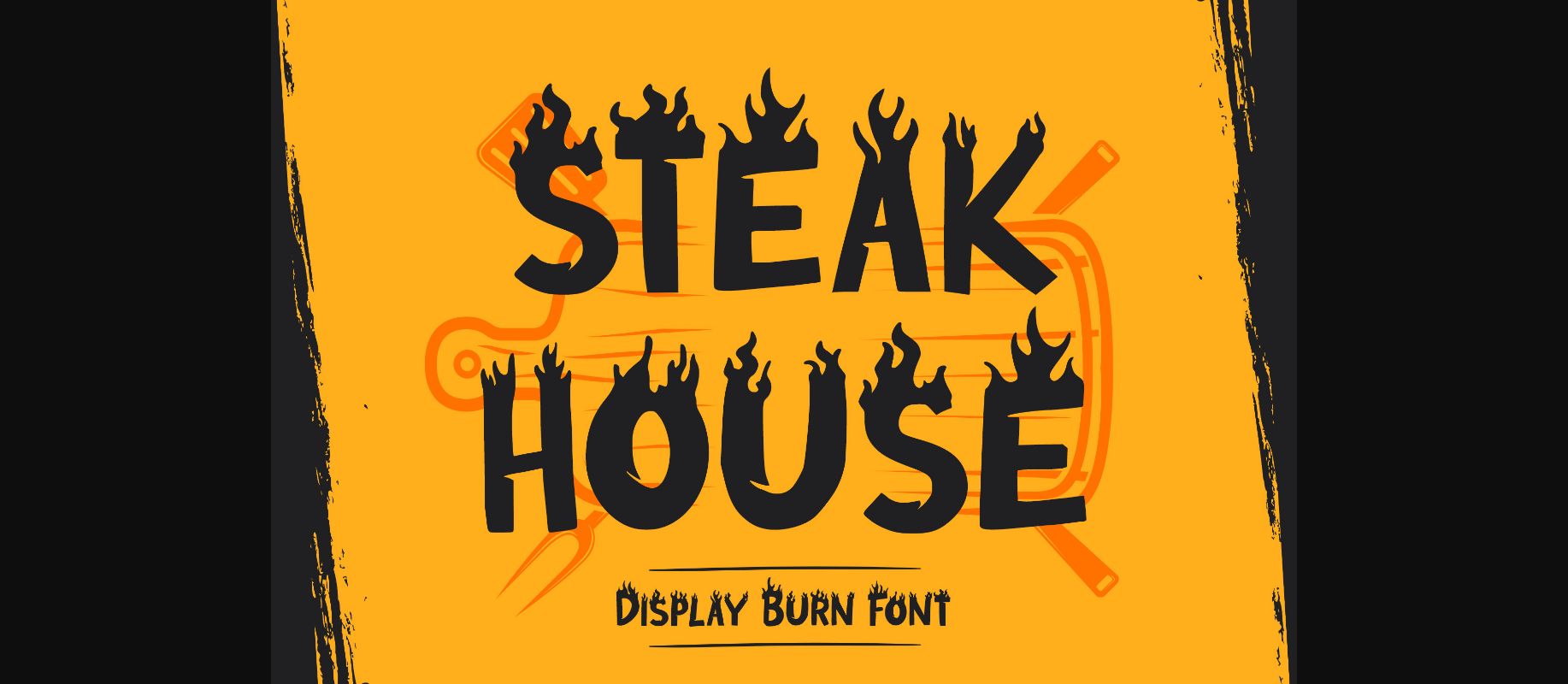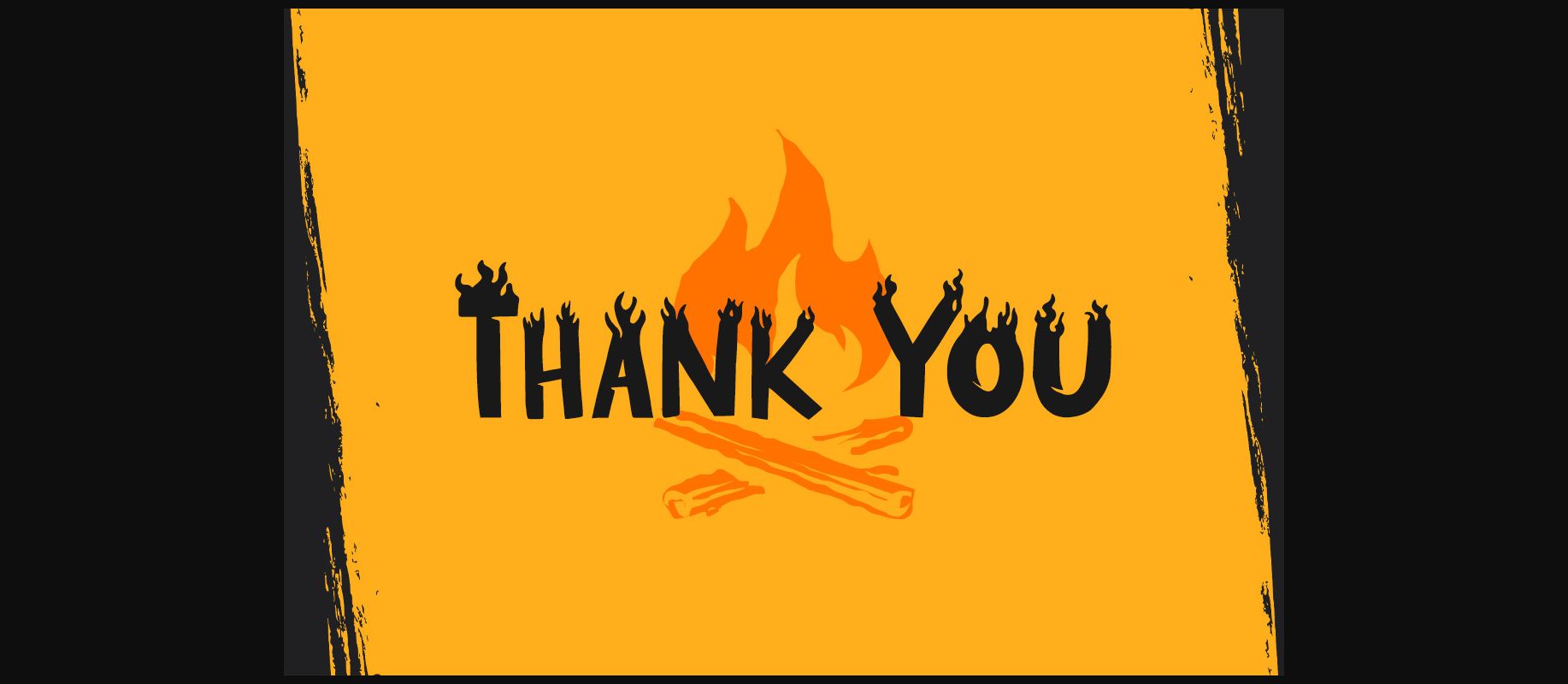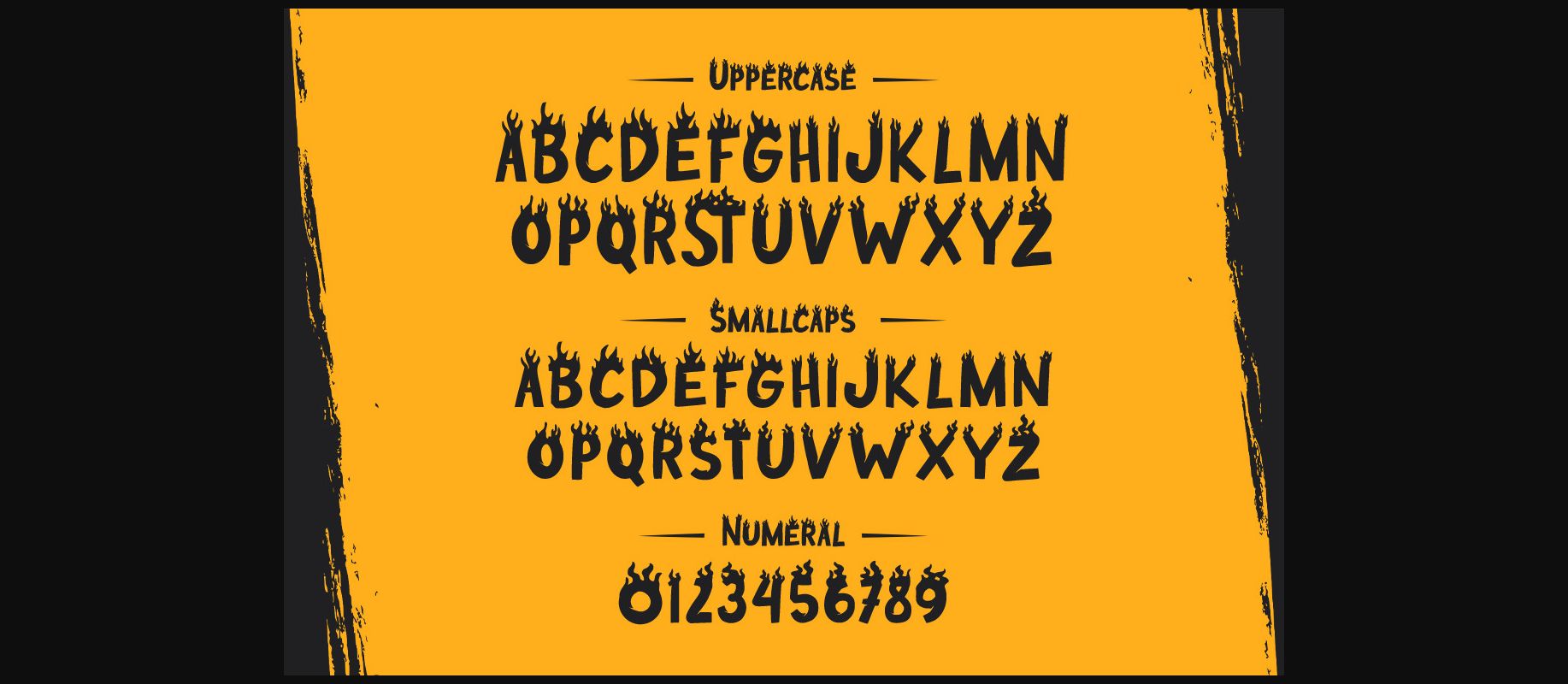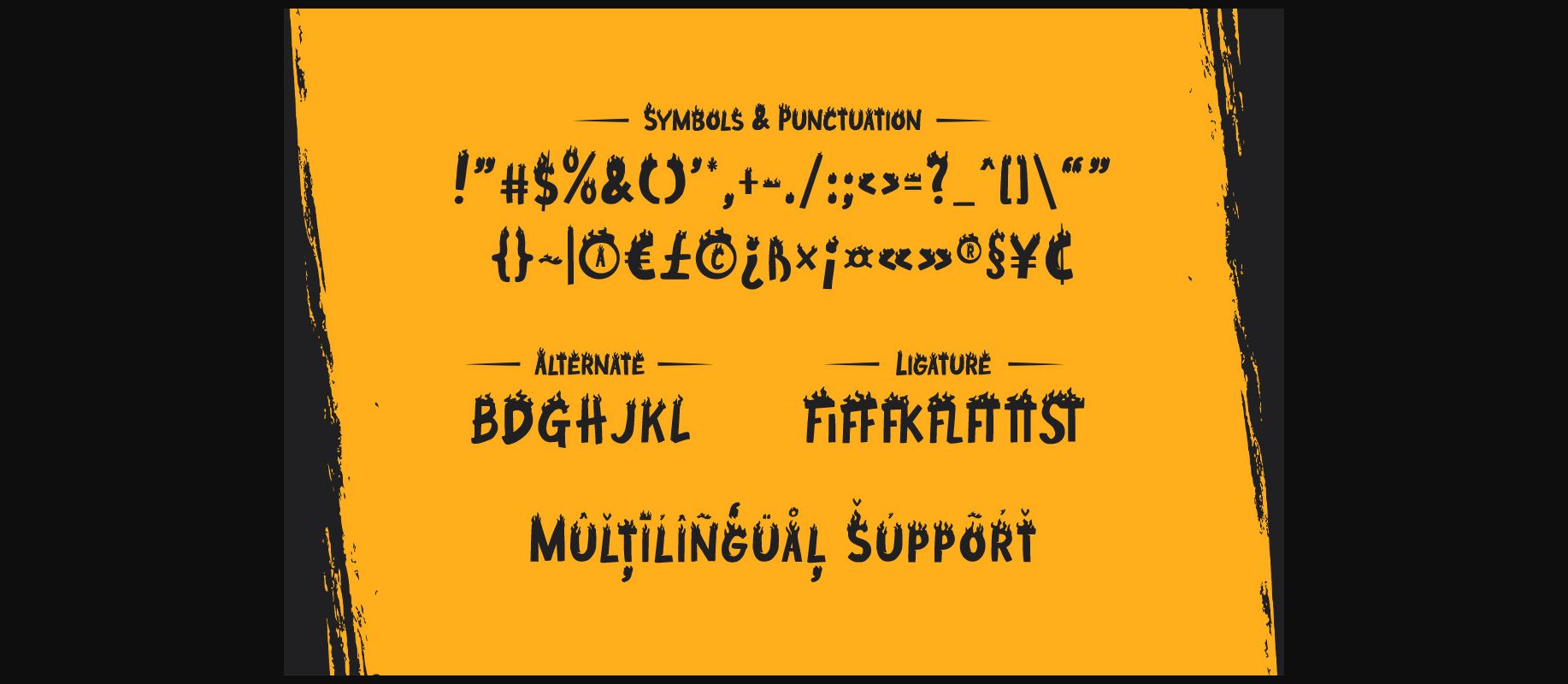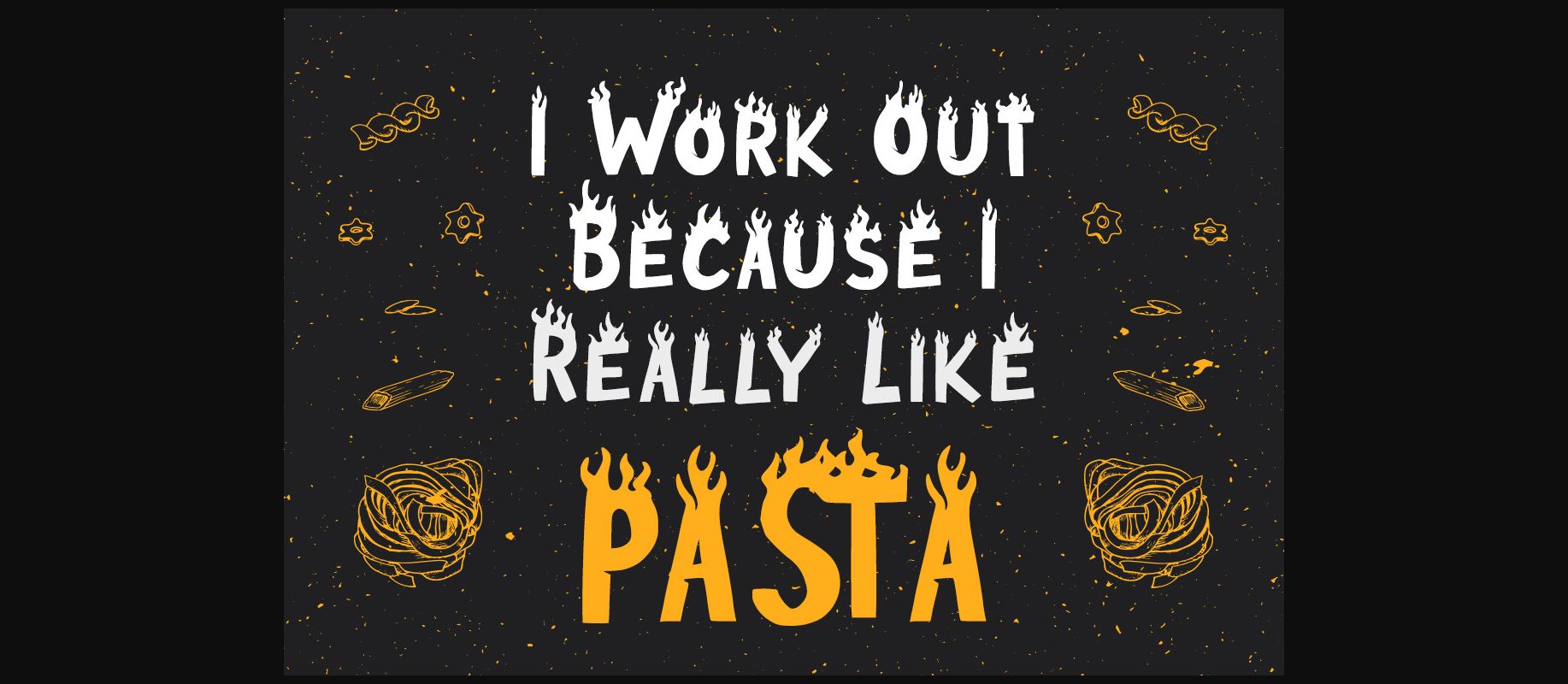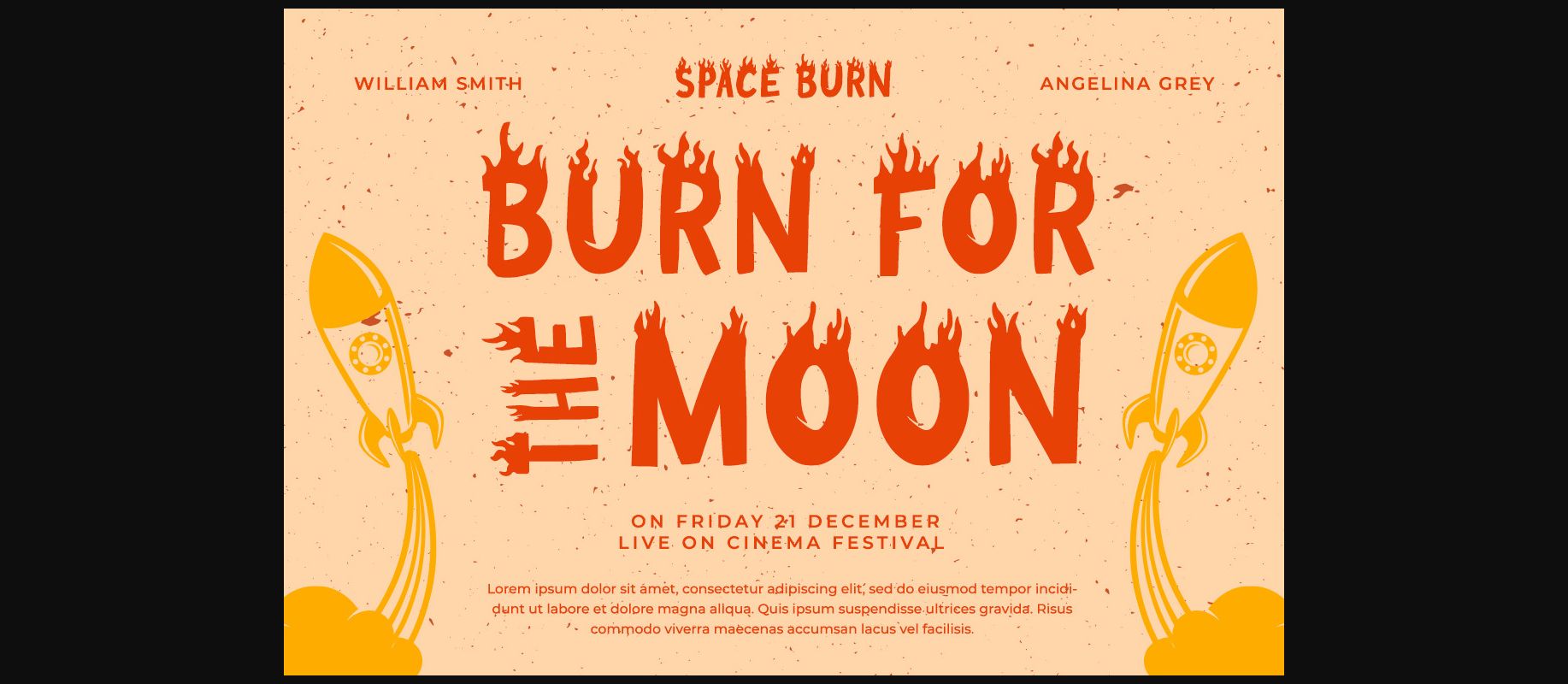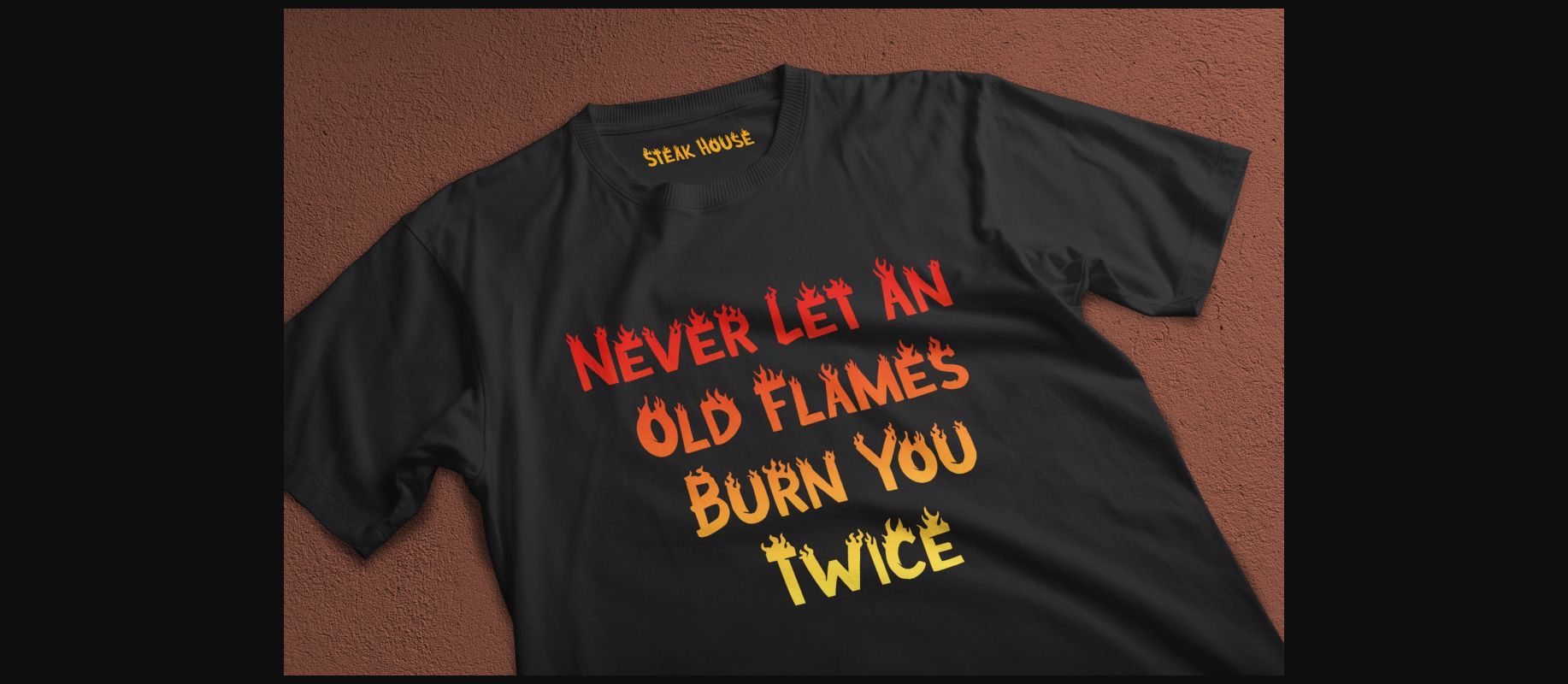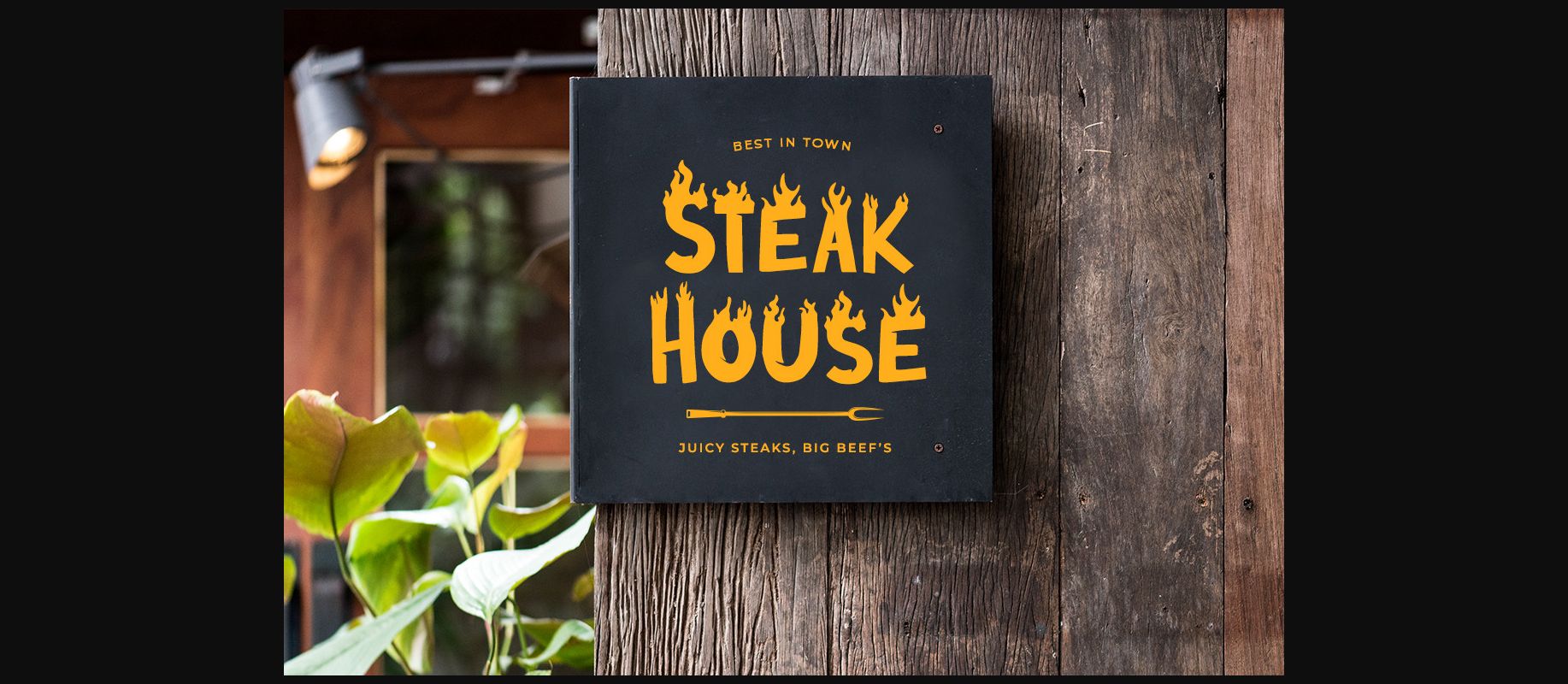
HomeDecorative FontsSteak House Font Decorative Fonts Steak House Font FacebookXPinterestWhatsApp 1 of 10 ... Steak House Font Poster 2... Steak House Font Poster 3... Steak House Font Poster 4... Steak House Font Poster 5... Steak House Font Poster 6... Steak House Font Poster 7... Steak House Font Poster 8... Steak House Font Poster 9... Steak House Font Poster 10... About Steak House Font Steak House is a cool decorative font, featuring characters with flames. Whether you use it for cartoon related designs, children games or just any creation that requires a lovely touch, this font will be an amazing choice. DOWNLOAD NOW People also explored Shantay Font Hughes Font Tropicalism Font Sweetfrance Font Jet Seat Font Boho Dreams Font Veruttala Font Aussie Font Sublimation Font 301 0 TagsSteak House Font Previous articleDoctor and Nurse FontNext articleStylish Monogram Font LEAVE A REPLY Cancel reply Comment: Please enter your comment! Name:* Please enter your name here Email:* You have entered an incorrect email address! Please enter your email address here Website: Save my name, email, and website in this browser for the next time I comment. Personal Use Free Loving Personal Use Free Read more about this font Bebas Neue Font Personal Use Free Read more about this font Geracella Personal Use Free Read more about this font Happy Rabbit Personal Use Free Read more about this font BLOG How to Cut Any Font on Cricut: Convert a Font to SVG (Free) Turn any font into a clean SVG so it cuts crisp on Cricut - a quick 3-step workflow using a free font-to-SVG tool. Free vs Paid Fonts: Why Investing in Premium Fonts Is Worth It Where to Buy American Fonts Online in 2024 Top 7 Google Fonts Alternatives for Faster and Privacy-Friendly Web Design (2025)